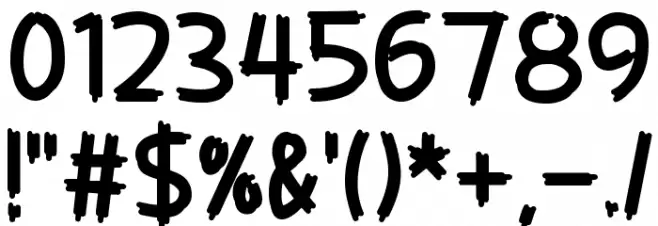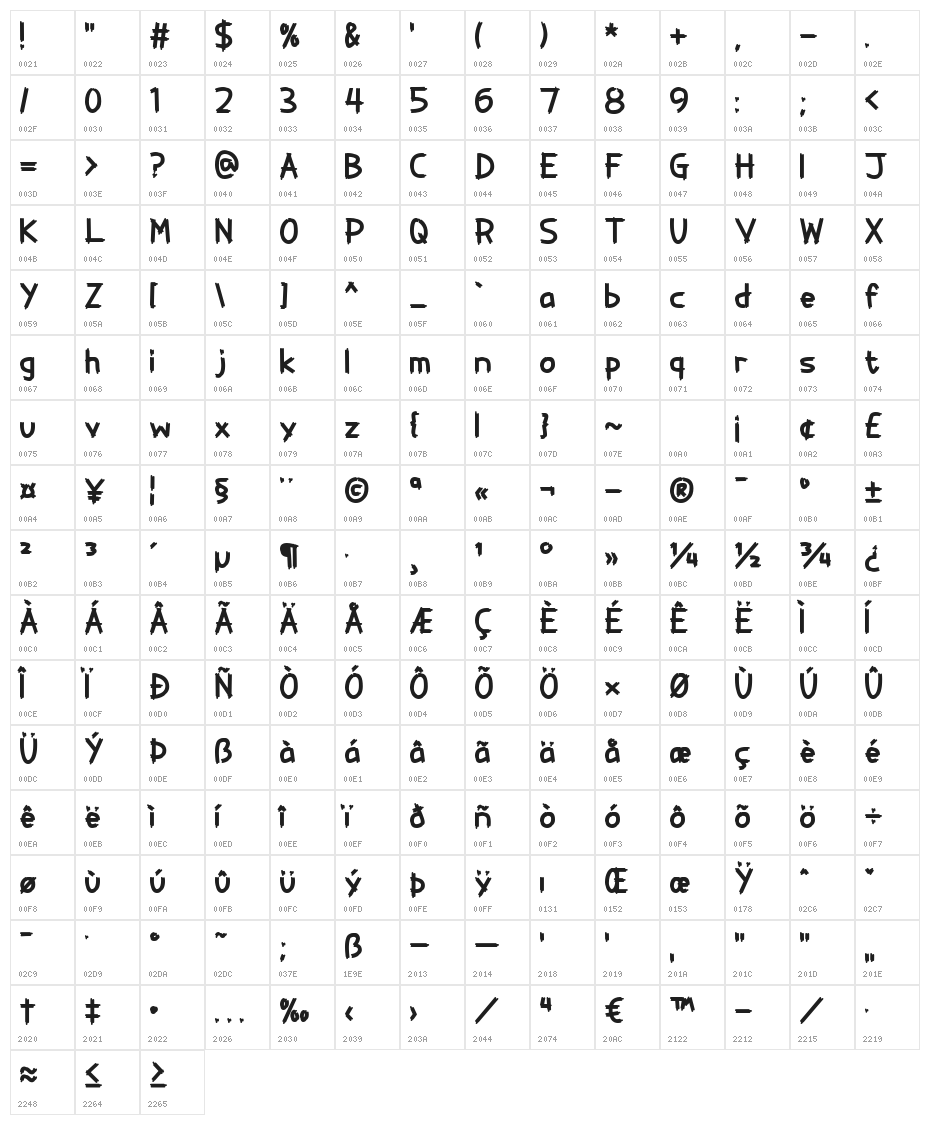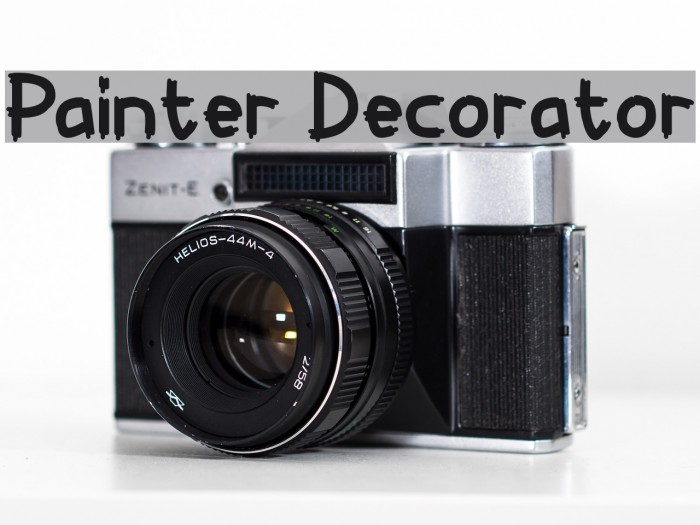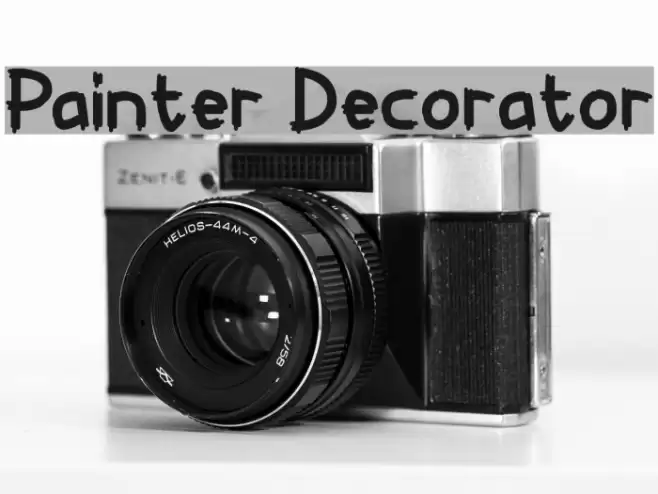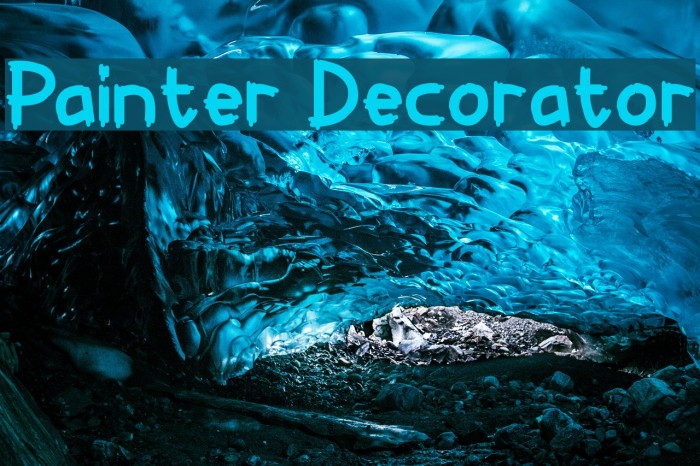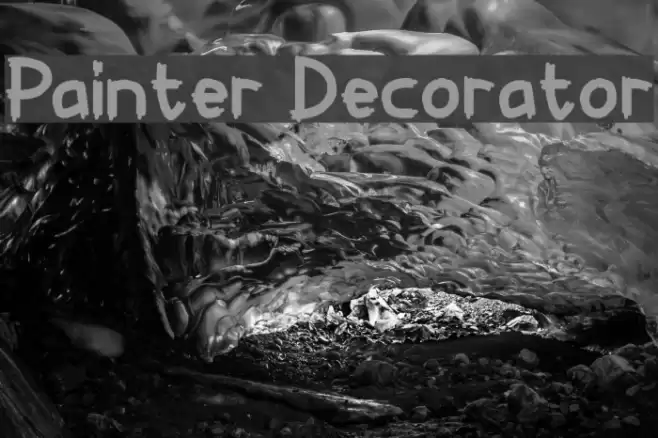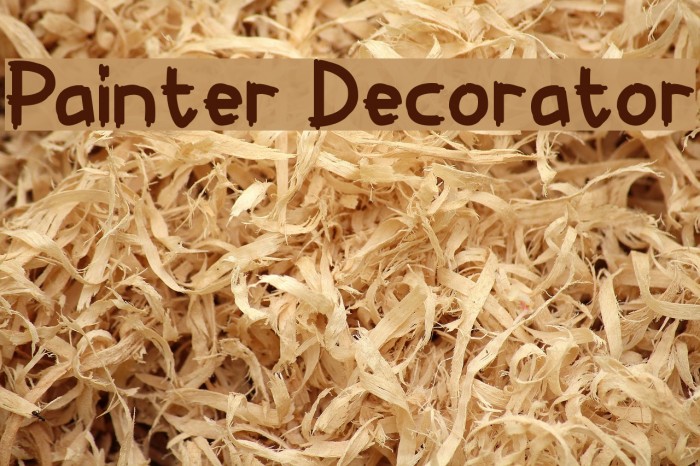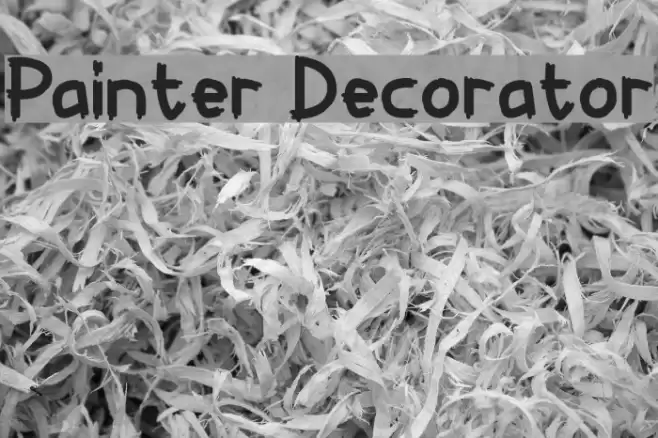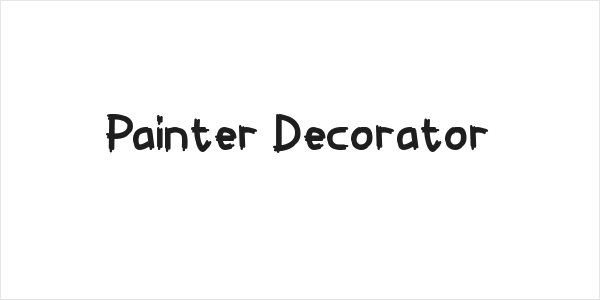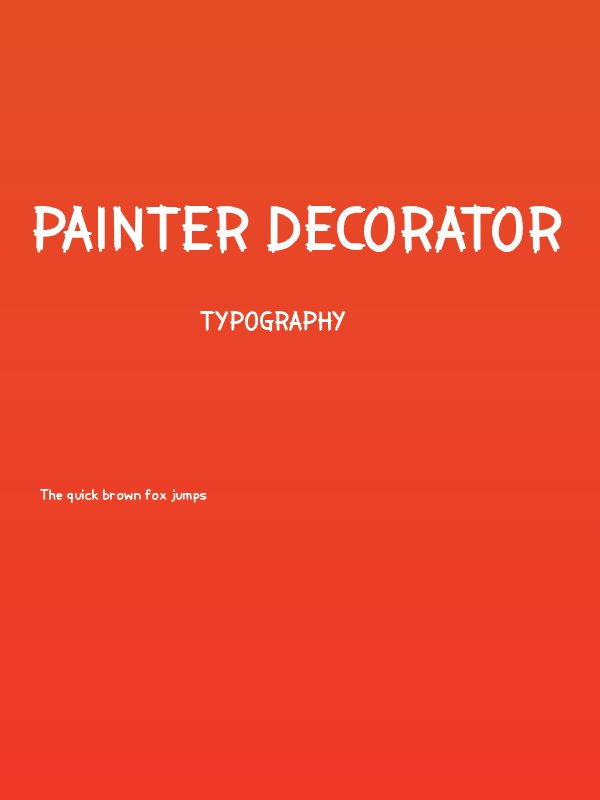
Painter Decorator Font
Painter Decorator Description
This font features a playful and artistic style, reminiscent of hand-painted lettering. The characters have a bold and slightly irregular appearance, giving them a casual and informal feel. The strokes are thick and uneven, adding to the hand-drawn aesthetic. The uppercase and lowercase letters maintain a consistent style, with rounded edges and a slightly whimsical touch. Numbers and special characters follow the same design principles, ensuring a cohesive look across all glyphs. This font is ideal for projects that require a creative and approachable vibe.
| Proposed Projects | Ideal for children's book covers, art-themed posters, playful branding, and creative social media graphics. |